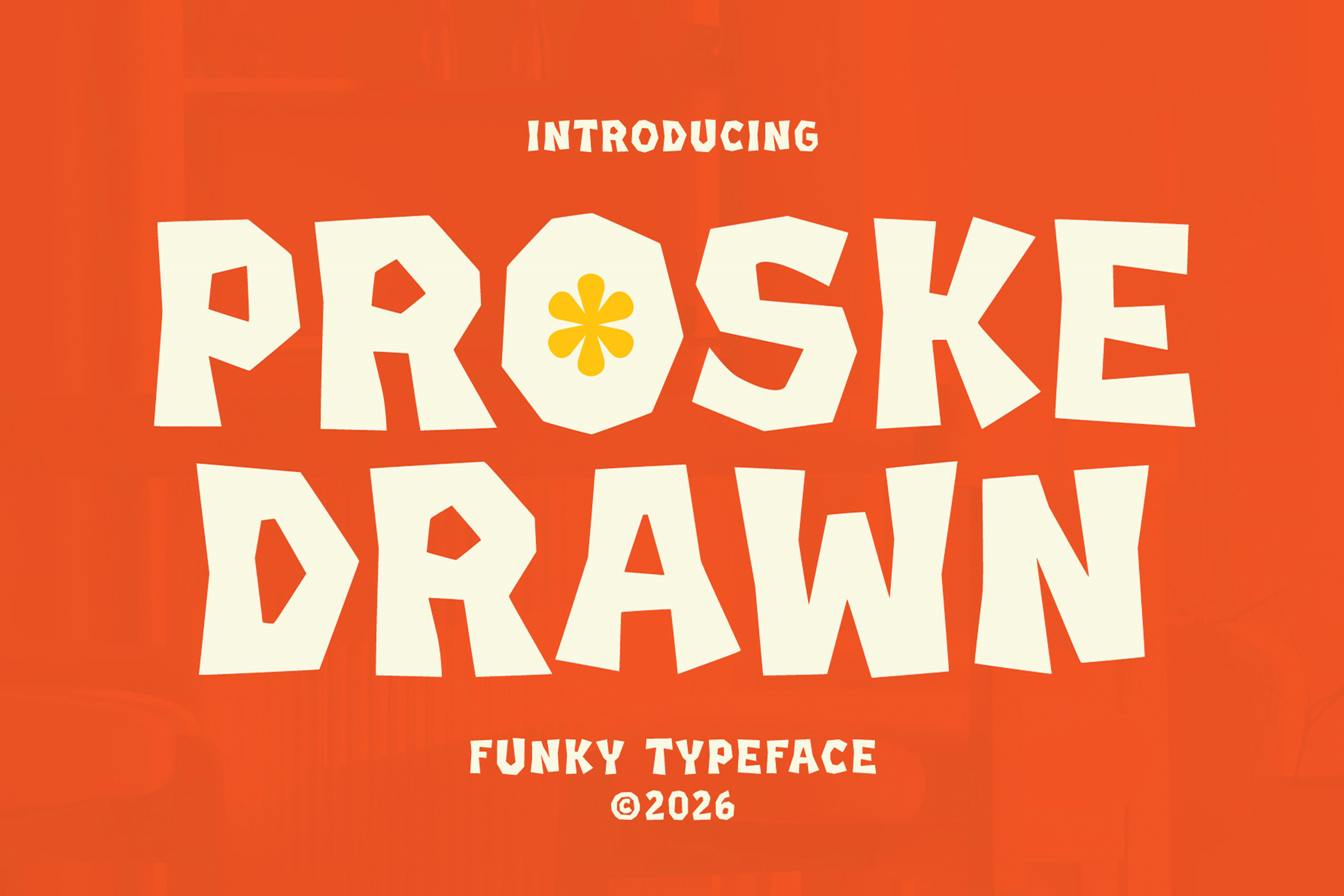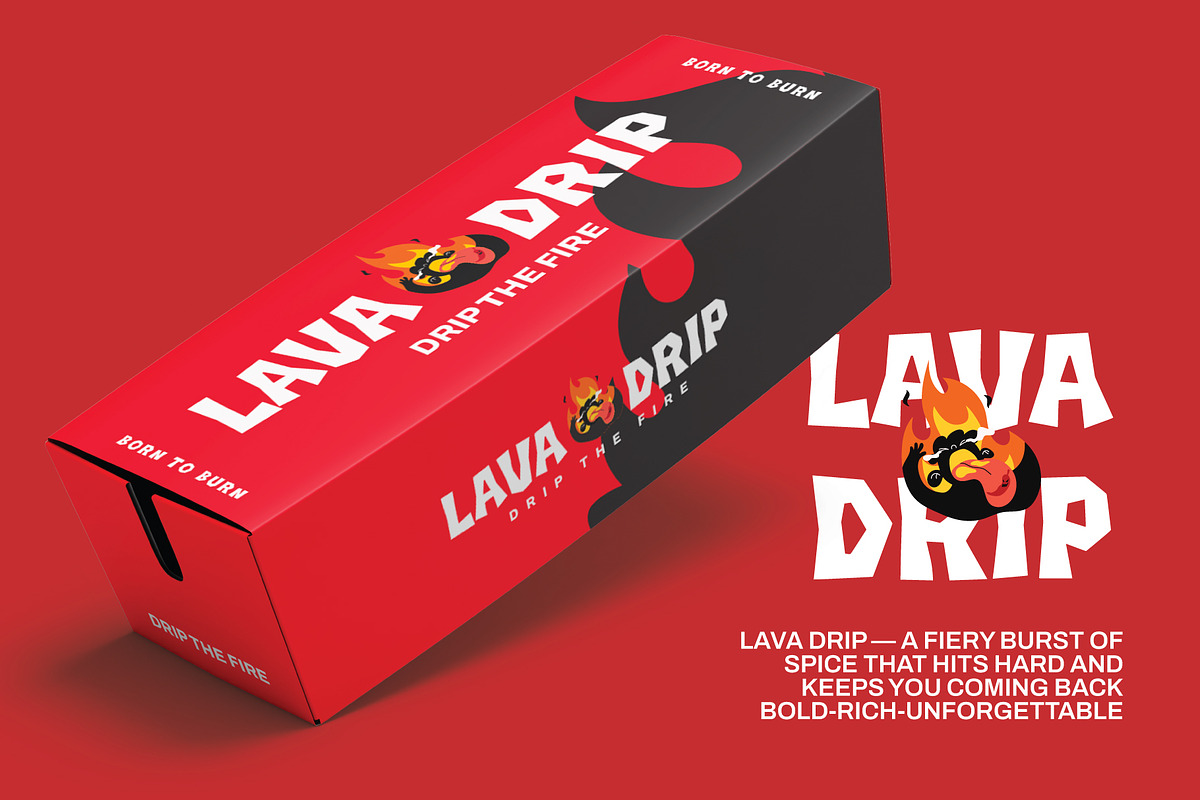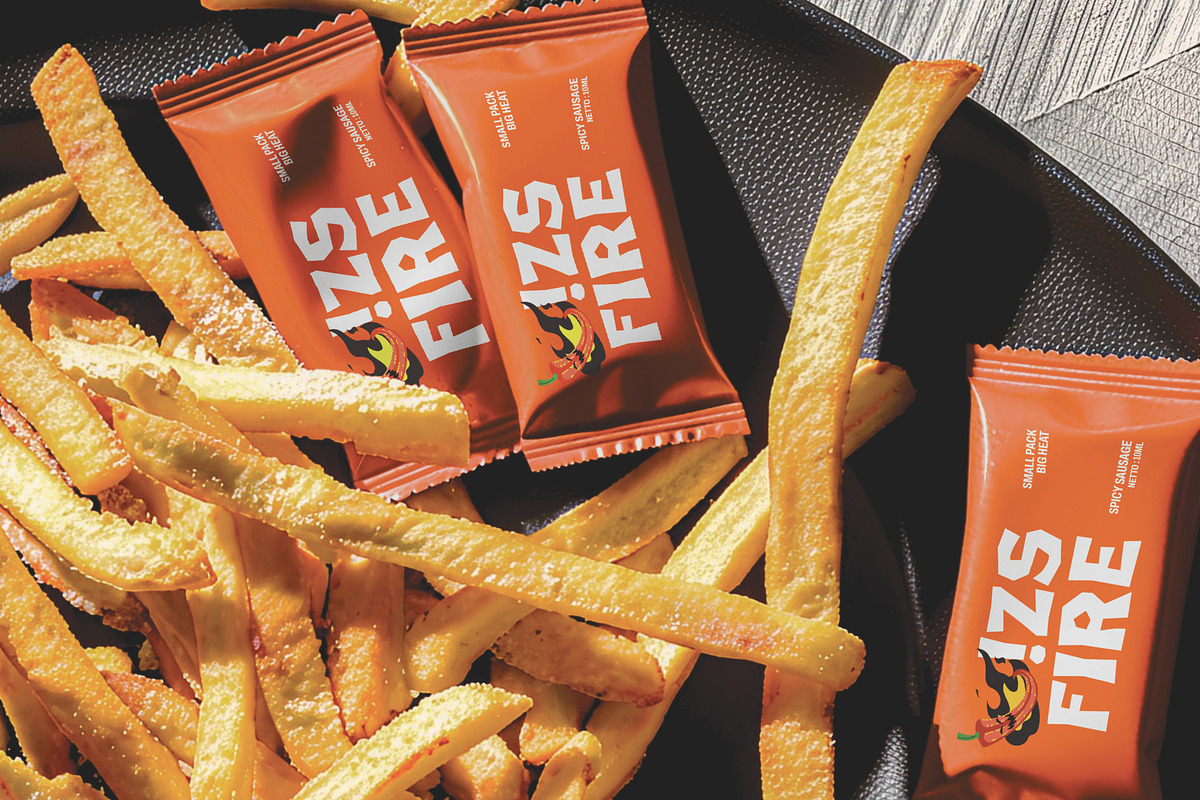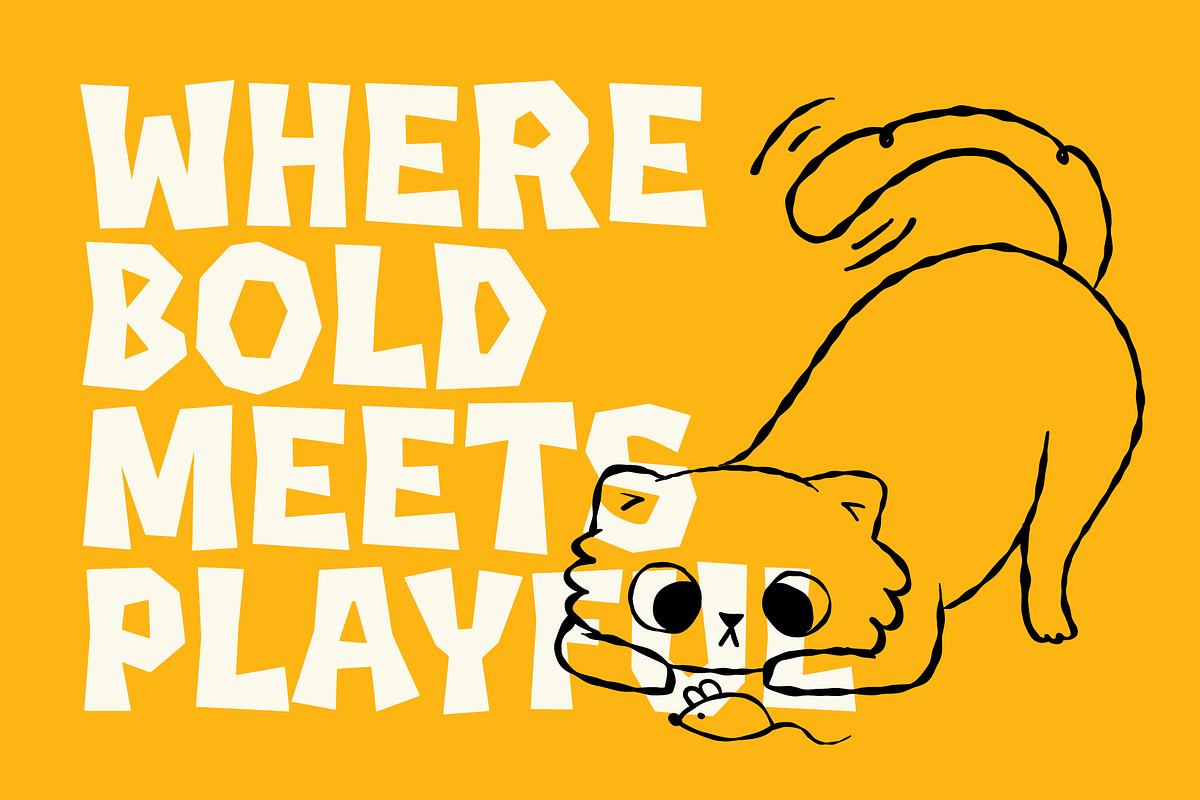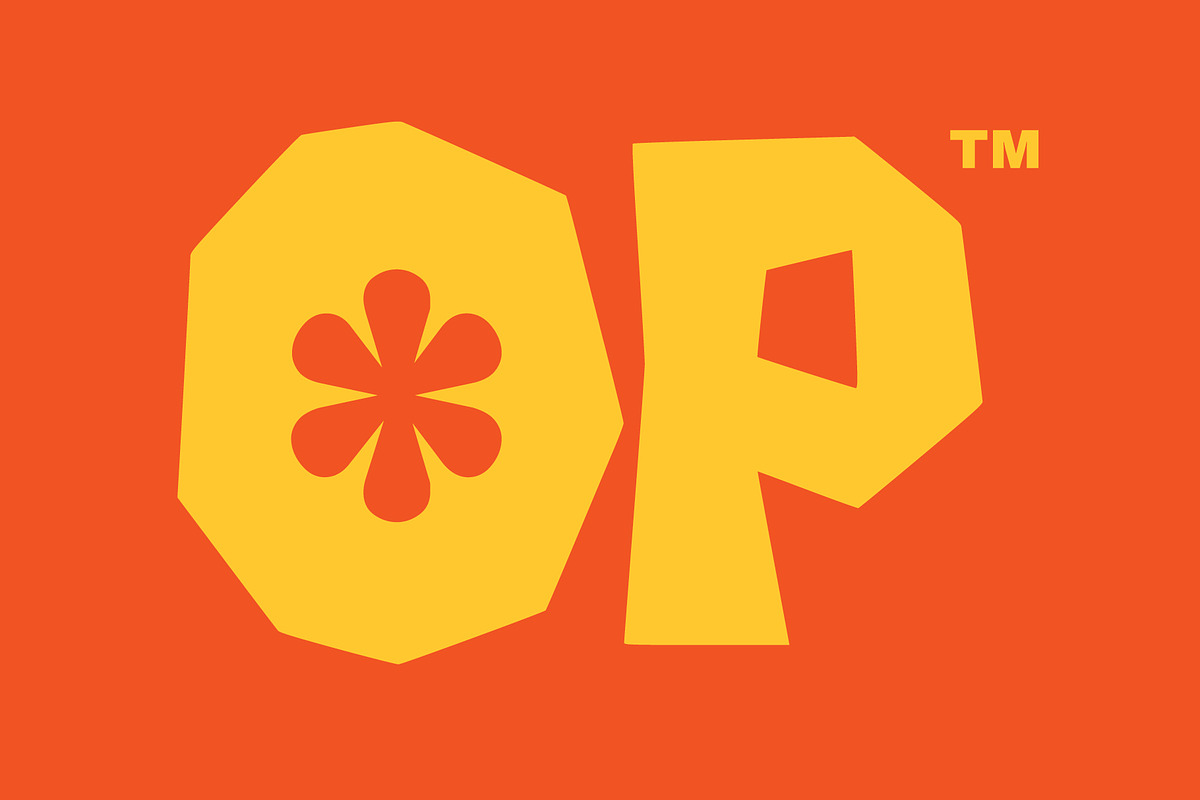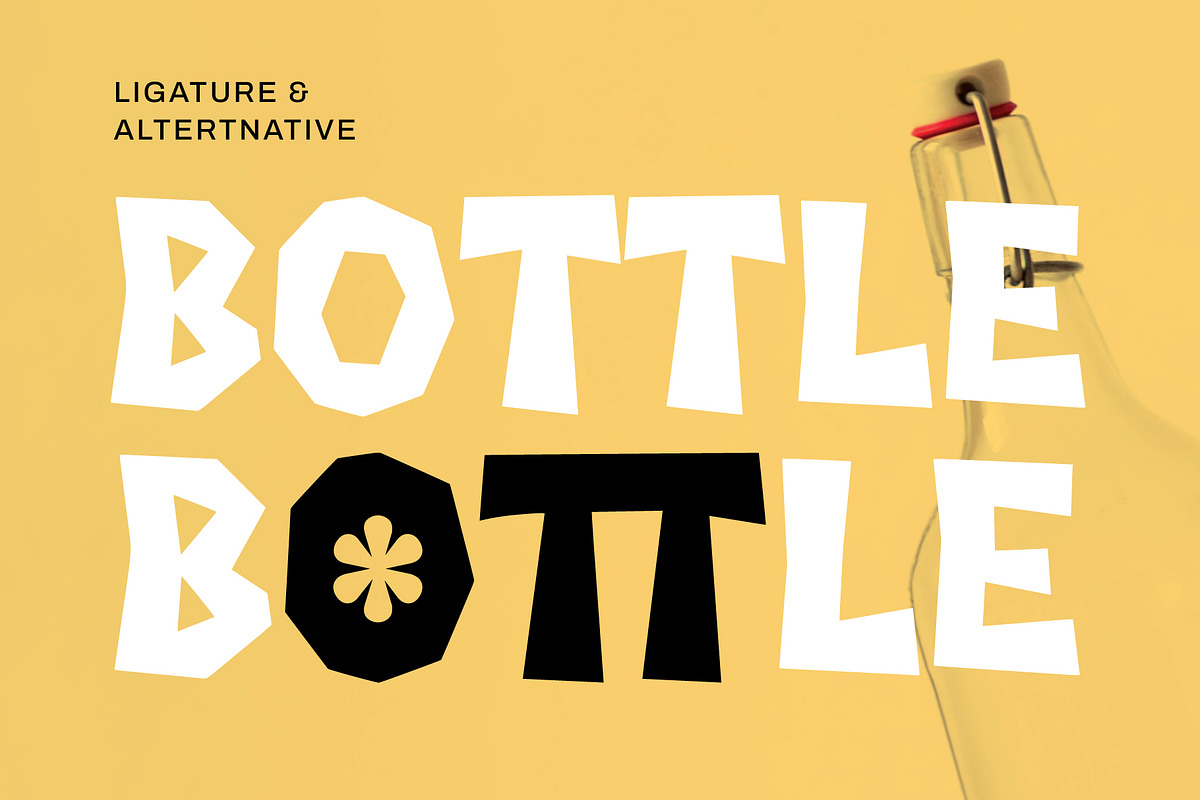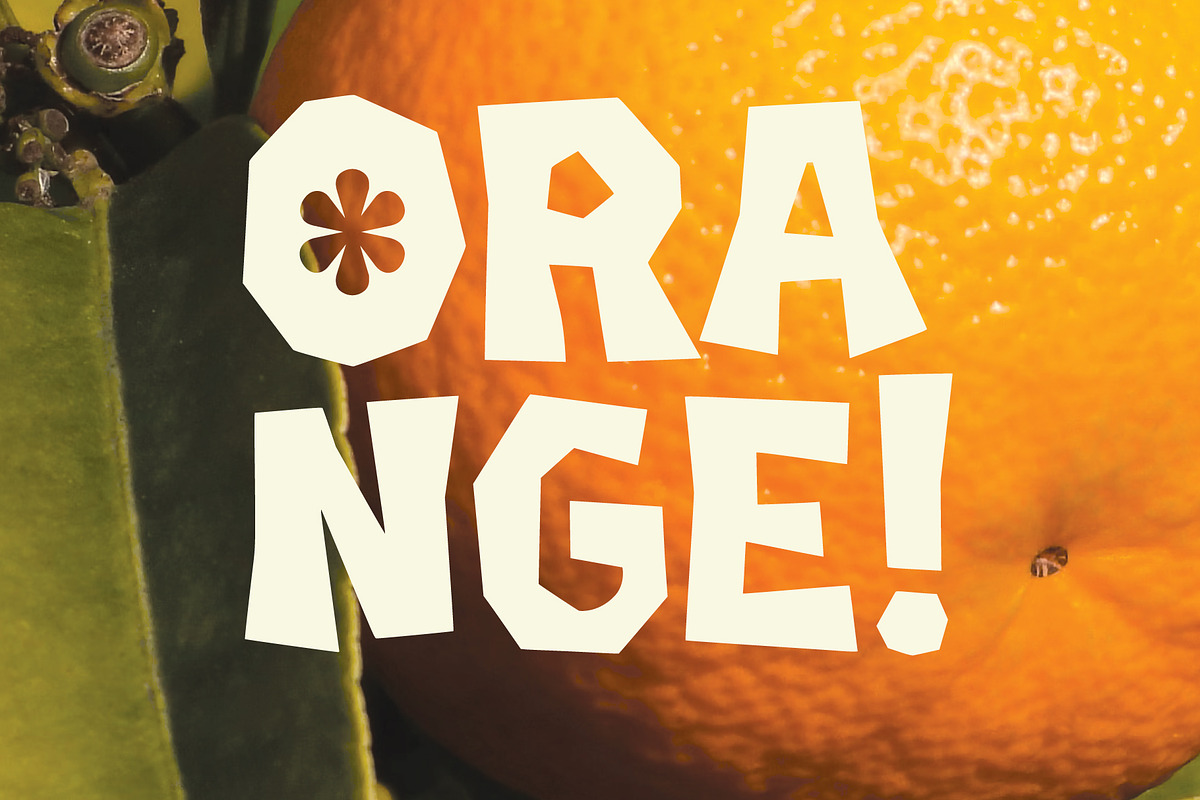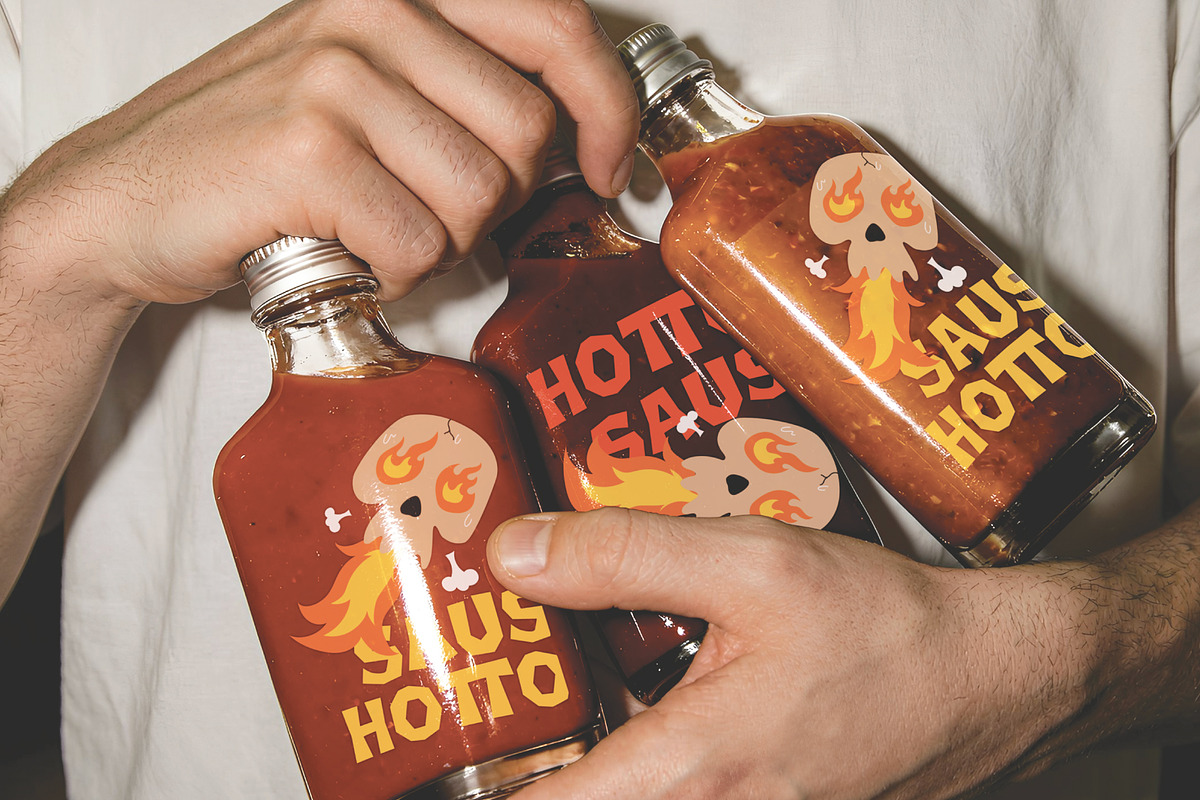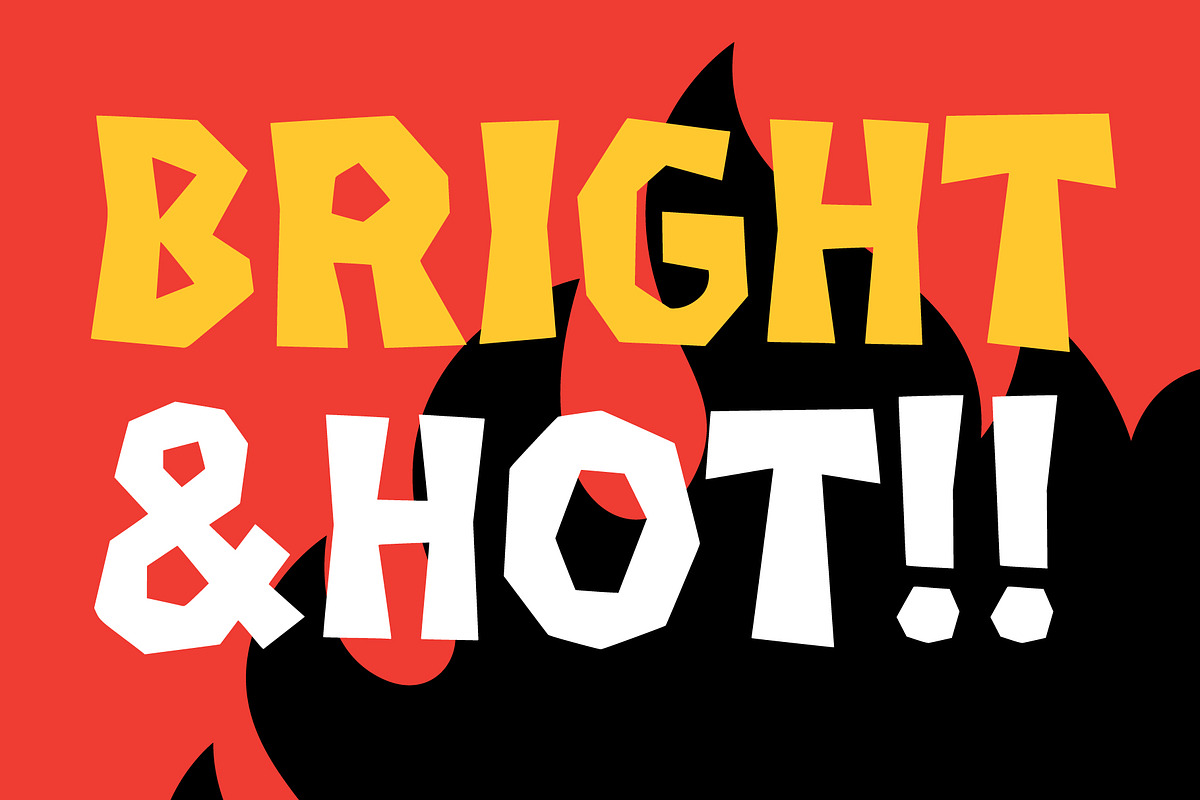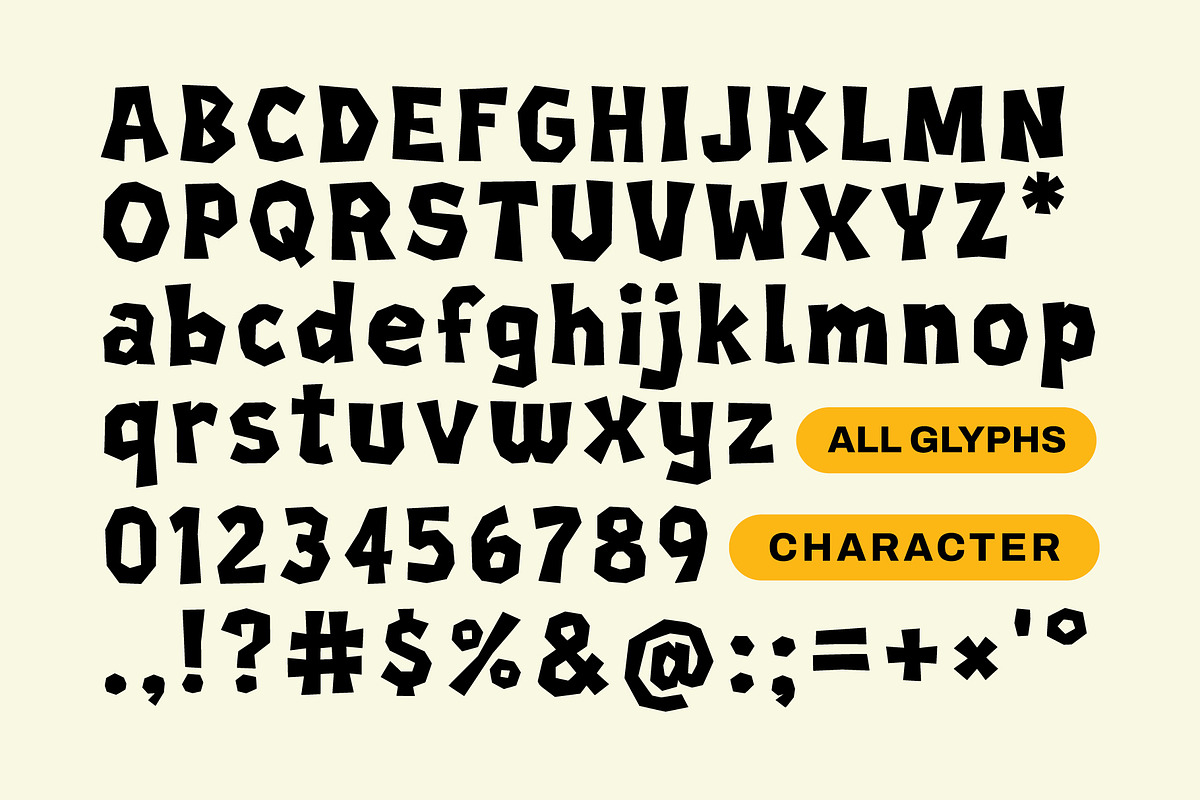
Proske Drawn - Funky Typeface
Proske is a bold and playful display font designed to bring energy and character into your designs. With its irregular shapes and chunky letterforms, this typeface delivers a strong visual impact that instantly grabs attention.
Ligature
Alternative